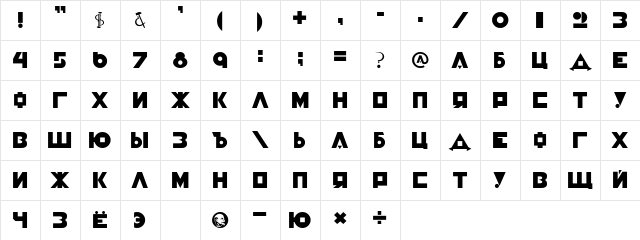
P22 Constructivist Cyrillic Regular
Foundry: P22 type foundry
Designer: Richard Kegler
Design Context for P22 Constructivist Cyrillic
P22 Constructivist Cyrillic is a composed and adaptable typeface that performs quietly and consistently across a wide range of design contexts.